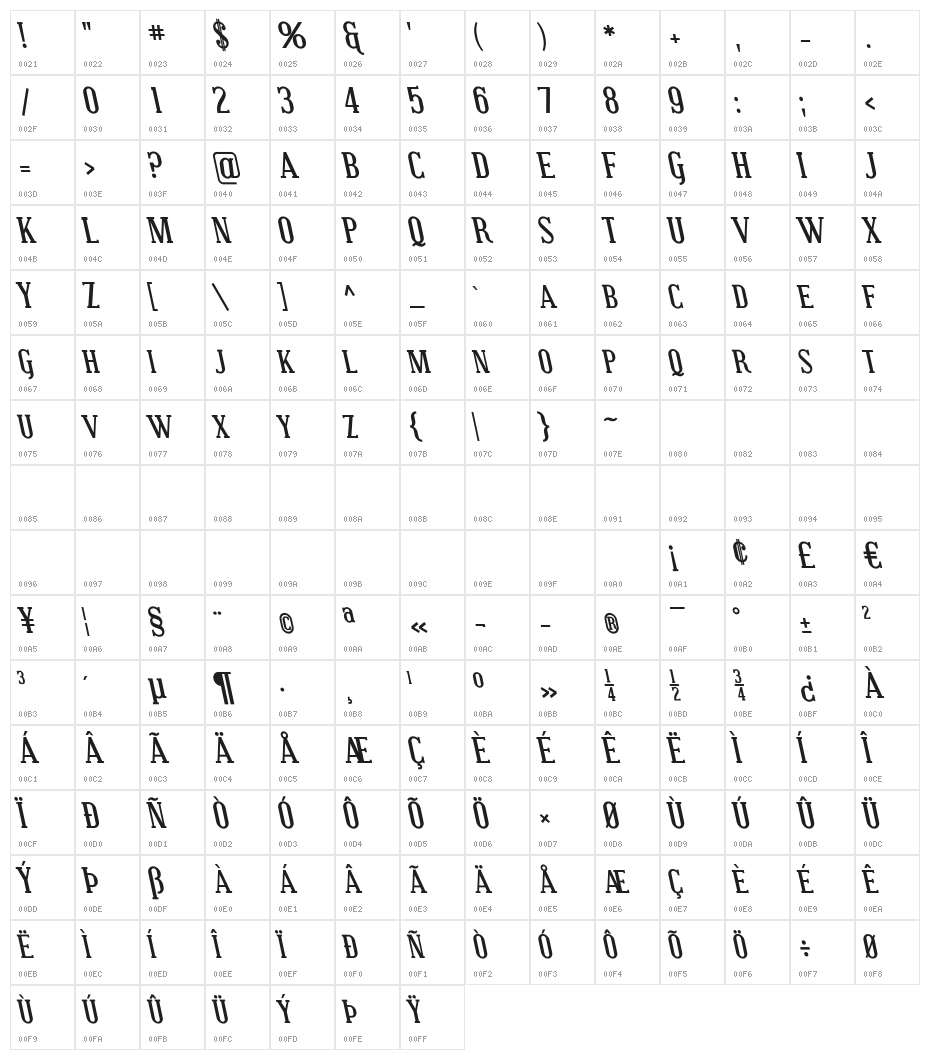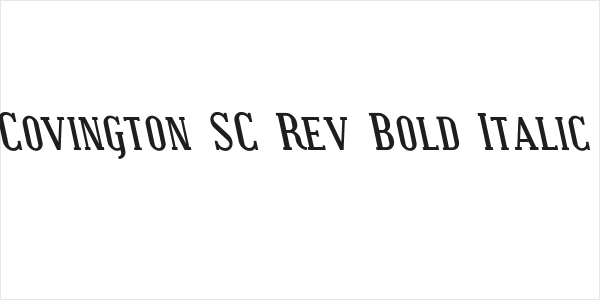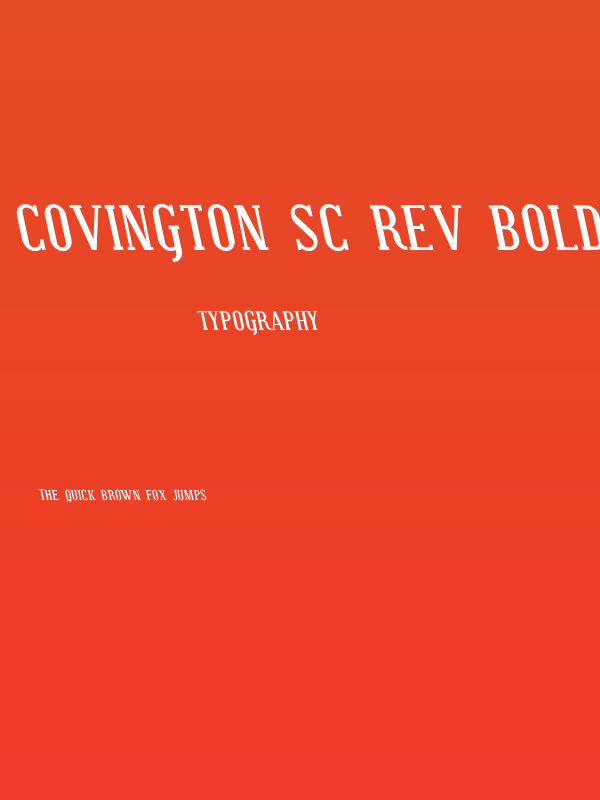
Covington SC Rev Bold Italic Font
Covington SC Rev Bold Italic Description
This font features a bold and italicized style, characterized by its strong, confident strokes and slight slant, giving it a dynamic and assertive appearance. The serifs are pronounced, adding a touch of elegance and tradition to the overall design. The uppercase letters are tall and commanding, while the lowercase letters maintain a consistent flow with the same boldness. Numbers are equally bold, ensuring readability and impact. The special characters are designed to match the overall aesthetic, providing a cohesive look across all elements. This font is ideal for making a statement, whether in headlines or logos, where a bold and stylish presence is required.